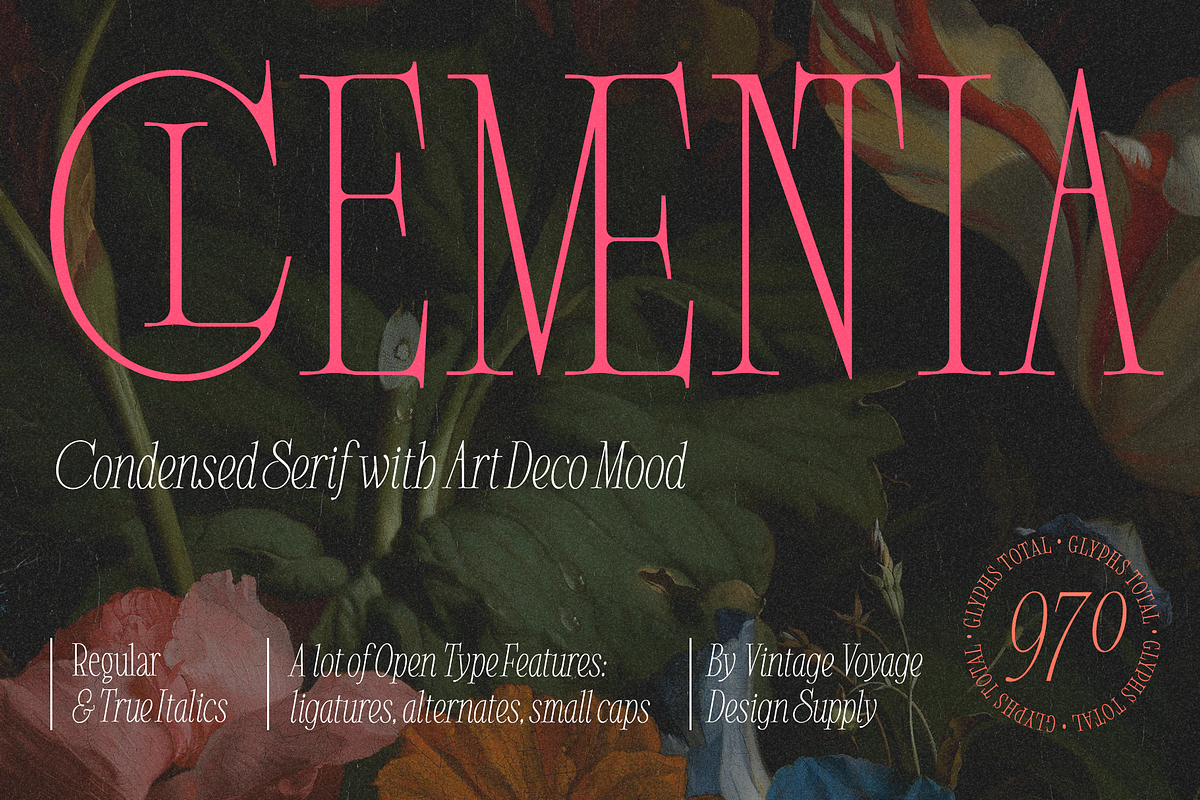
The Clementia Stylish Serif Font Free Download is a sophisticated and modern serif typeface that brings elegance and readability to your designs. With its carefully crafted letterforms and stylish details, this font is perfect for creating high-end branding, logos, editorial layouts, invitations, and more. The unique balance between classic serif elements and contemporary design makes Clementia ideal for luxury projects, fashion brands, and premium websites. Its versatile and timeless look ensures it stands out in both digital and print media. Please note, for commercial use, a license purchase is required. However, you can easily download the Clementia Stylish Serif Font Free Download for free for personal use and explore its potential in your creative projects. Download the Clementia Stylish Serif Font Free Download today and elevate your designs with this elegant and stylish serif font.